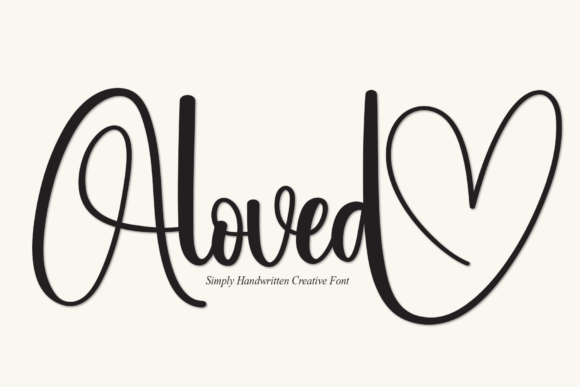
When Words Become Art: Discovering the Aloved Font
As designers, we’ve all been there – staring at a blank canvas, struggling to find the perfect font to bring our creative vision to life. The words we choose can make or break the entire aesthetic of our design, and that’s exactly where the Aloved Font comes in.
Aloved Font is a beautiful, elegant handwritten script font that exudes warmth and personality. Its unique style is perfect for designers who want to add a touch of sophistication to their projects, from wedding invitations and thank-you cards to logos and branding materials. With the Aloved Font, you can give your designs a personalized and bespoke feel that’s sure to leave a lasting impression.
Whether you’re a seasoned designer or just starting out, the Aloved Font is a valuable addition to your toolkit. Its versatility and elegance make it an ideal choice for a wide range of projects, and its ease of use means you can focus on what matters most – bringing your creative vision to life.
Aloved Font Key Features
- Font Size: The font family includes 12 styles, ranging from Thin to ExtraBold, allowing for a wide range of typographic expressions.
- Unique Characteristics: This font features a unique blend of modern and elegant elements, with subtle rounded edges and a sophisticated feel.
- Language Support: Aloved Font supports a wide range of languages, including Latin, Cyrillic, and Greek scripts, making it a versatile choice for global designs.
- Font Metrics: The font’s x-height, cap height, and baseline are carefully crafted to ensure optimal readability and legibility across various font sizes and styles.
Aloved Font Review
Aloved Font is a beautiful and elegant script font that can add a touch of sophistication to any design project. ✨ Its flowing connections and smooth lines make it perfect for creating a romantic or vintage feel. The font is highly customizable, with a wide range of weights and styles available, making it easy to find the perfect fit for your project.
- ✨ Highly customizable with multiple weights and styles
- ✨ Elegant and sophisticated design
- ✨ Perfect for creating a romantic or vintage feel
However, there are a few limitations to consider. ⚠️ The font may not be suitable for large blocks of text, as the connections between letters can become confusing and difficult to read. Additionally, the font may not be as readable at smaller font sizes, which can be a limitation for designs that require a lot of fine print.
- ⚠️ May not be suitable for large blocks of text
- ⚠️ May not be readable at smaller font sizes
Overall, Aloved Font is a beautiful and elegant script font that is perfect for adding a touch of sophistication to your designs. While it may have some limitations, it is definitely worth considering for any project that requires a romantic or vintage feel.
To get the most out of the Aloved Font, consider the following tips:
- Use the font in combination with other elegant fonts for a sophisticated look.
- Use the font in headings and titles to create a clear hierarchy.
The Aloved Font is ideal for:
- Business cards and brochures.
- Magazine and newspaper headlines.
Q: Does the Aloved Font support ligatures and contextual alternates?
Yes, the Aloved Font includes ligatures and contextual alternates, which can enhance the overall typography and readability of your designs. These features can be accessed in design software that supports OpenType, such as Adobe Creative Cloud applications.